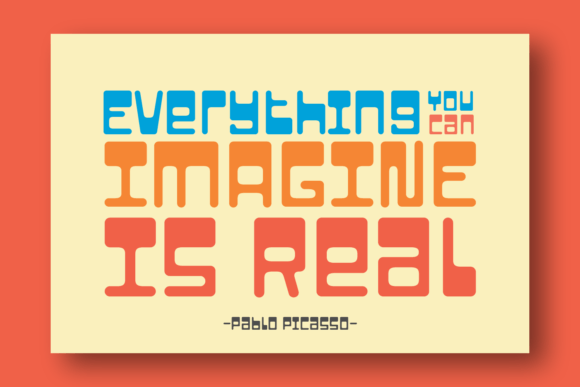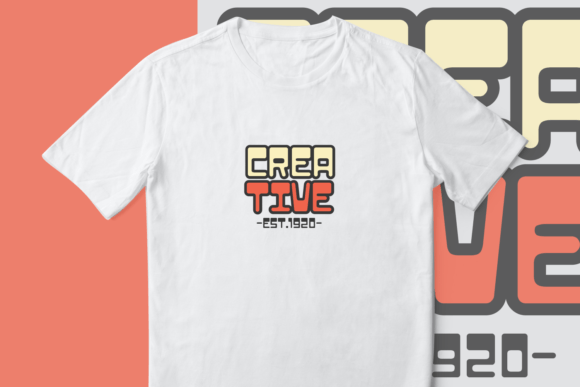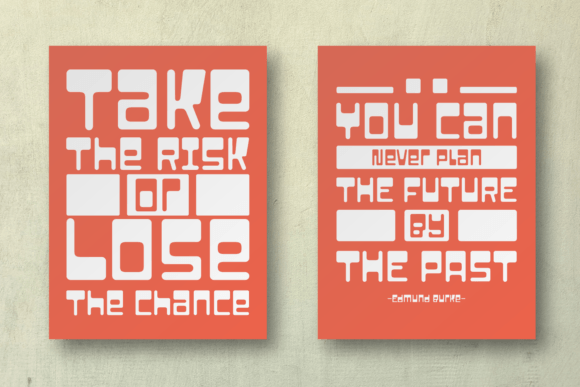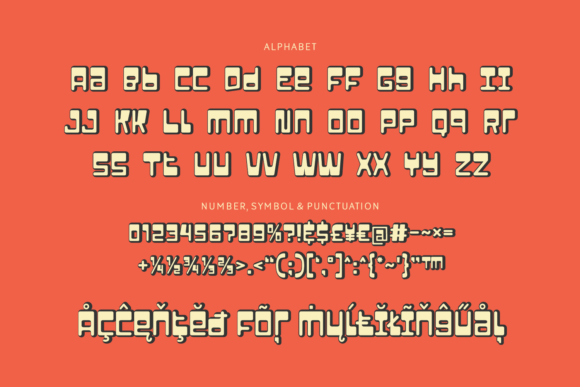
Introducing Beta Maca Font: The Ultimate Display Font for Futuristic Designs
In the world of typography, a good font can make all the difference in creating stunning visual designs. If you’re a designer or crafter looking for a unique and bold display font to elevate your projects, look no further than Beta Maca Font. This one-of-a-kind typeface is specifically designed to add a touch of futurism and eccentricity to your designs, making it perfect for technology-themed projects and beyond.
What Makes Beta Maca Font Stand Out?
Beta Maca Font is a bold and eccentric display font that boasts a distinctive style that’s sure to turn heads. Its unique design elements make it an ideal choice for designers who want to create outstanding typography designs that stand out from the crowd. Whether you’re working on a futuristic project, a technology-themed design, or simply want to add some excitement to your typography, Beta Maca Font is the perfect choice.
Key Features of Beta Maca Font
- Unique and Bold Design: Beta Maca Font features a bold and eccentric design that’s perfect for creating eye-catching typography.
- Futuristic and Technology-Themed: This font is specifically designed with futuristic and technology-themed projects in mind, making it perfect for designers working on sci-fi, robotics, or tech-related designs.
- Highly Versatile: While Beta Maca Font is ideal for display typography, it’s also highly versatile and can be used for a wide range of design projects, from posters and flyers to logos and branding.
- Experiment with Different Sizes: Beta Maca Font looks great in large display sizes, but it can also be used for smaller text sizes. Experiment with different sizes to find the perfect fit for your design.
- Play with Colors: Beta Maca Font comes in a range of colors, so don’t be afraid to experiment and find the perfect color scheme for your design.
- Combine with Other Fonts: Beta Maca Font pairs well with a range of other fonts, so try combining it with other typefaces to create a unique and interesting design.
Benefits of Using Beta Maca Font
So why choose Beta Maca Font for your design projects? Here are just a few benefits of using this unique and versatile font:
- Stand Out from the Crowd: With Beta Maca Font, you can create designs that stand out from the crowd and grab attention.
- Save Time: Beta Maca Font is easy to use and comes with a range of features that make it easy to create stunning typography designs quickly and efficiently.
- Impress Your Clients: If you’re a designer working with clients, Beta Maca Font is sure to impress. Its unique and bold design is sure to wow even the most discerning clients.